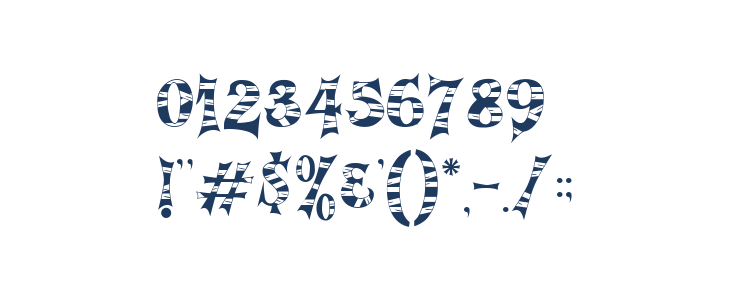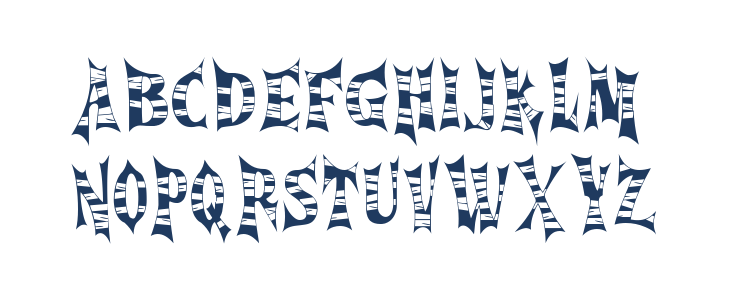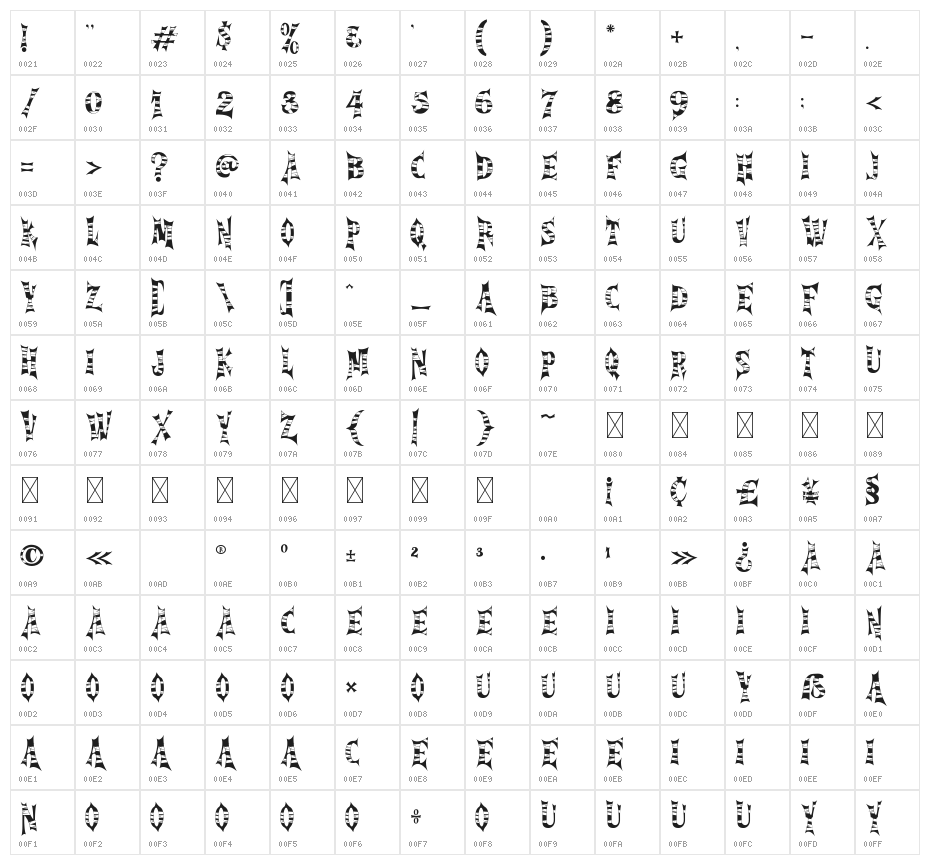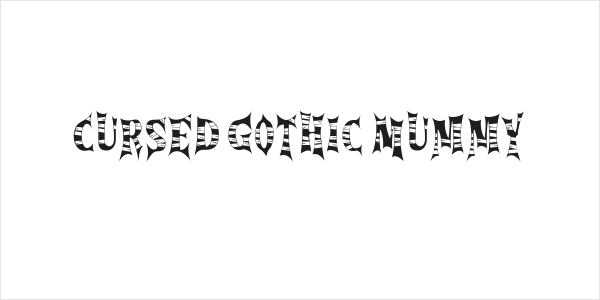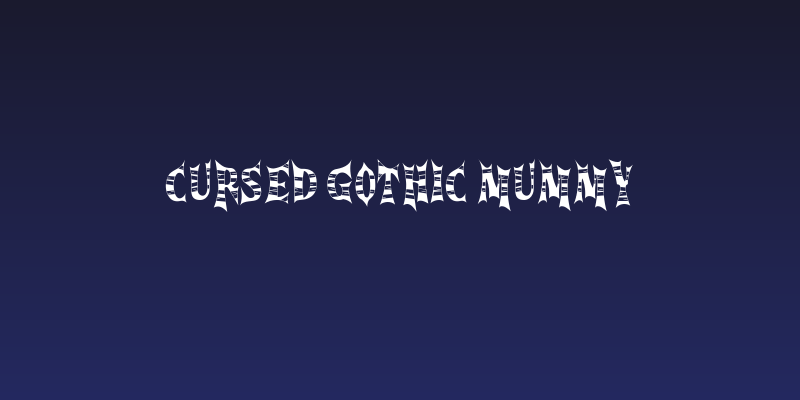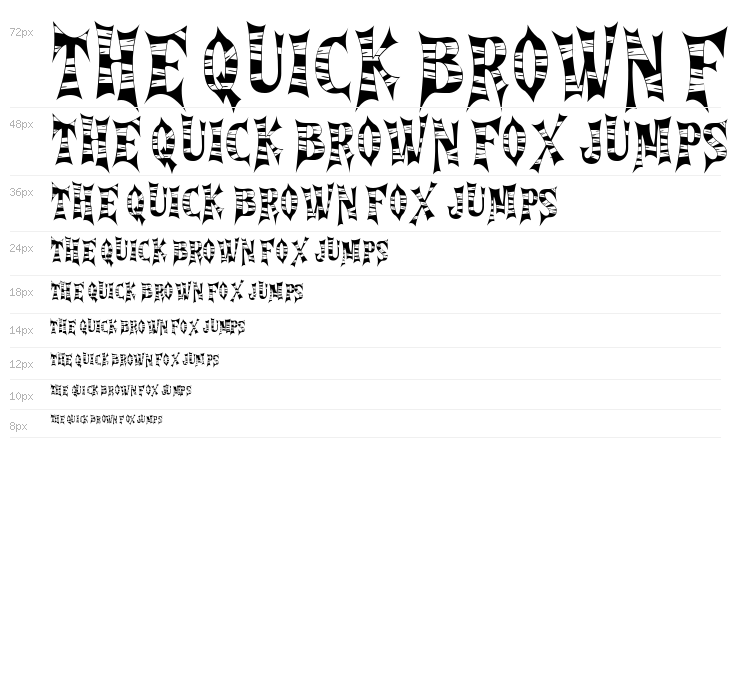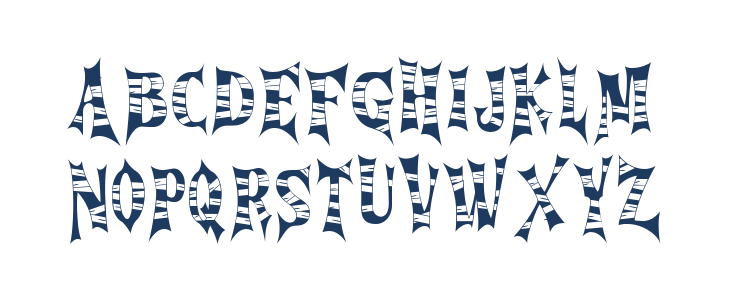
Cursed Gothic Mummy Font
Cursed Gothic Mummy Description
A highly decorative display typeface with sharp, angular serifs and a bandaged, wrapped texture reminiscent of mummy wrappings. The letterforms are bold and dramatic, with exaggerated points and irregular contours, creating a spooky, Halloween-inspired aesthetic.
| Overall Style | Decorative, Spooky, Thematic |
| Use Case | Headlines, Posters, Logos, Event Titles |
| Proposed Projects | Halloween posters, haunted house flyers, themed party invitations, horror movie titles, event branding. |